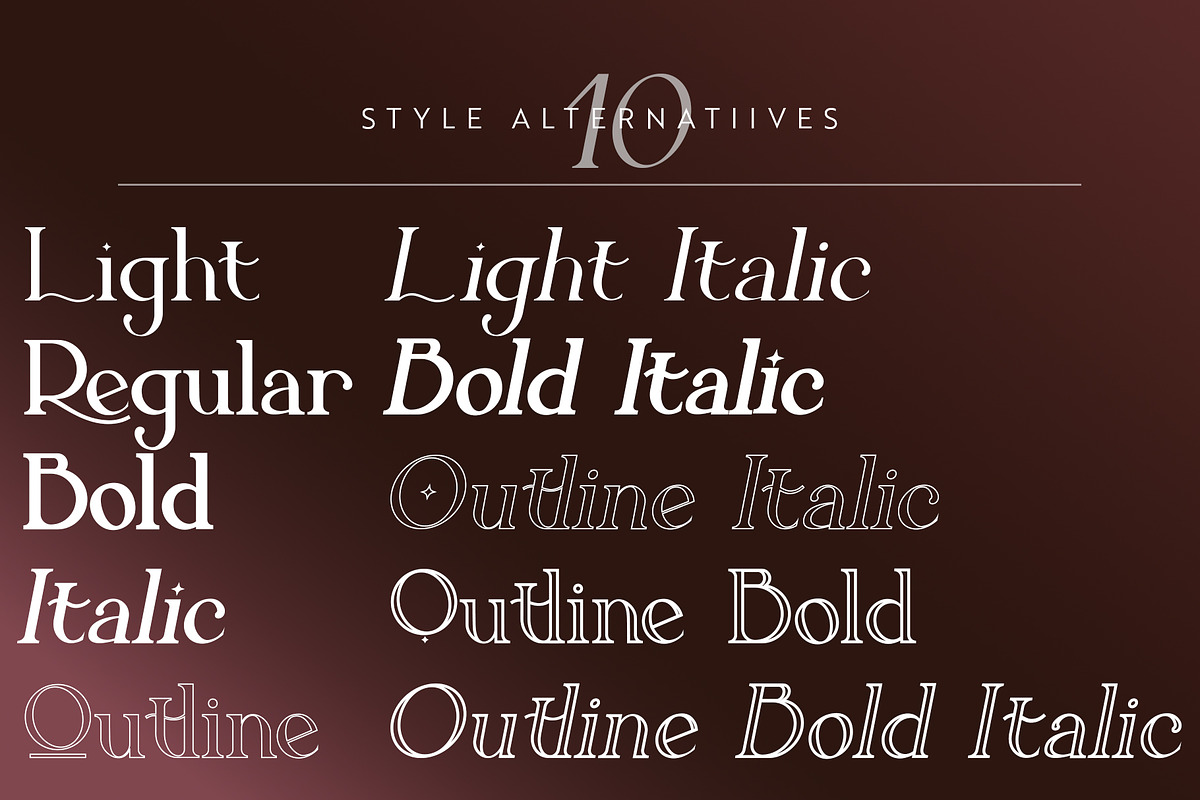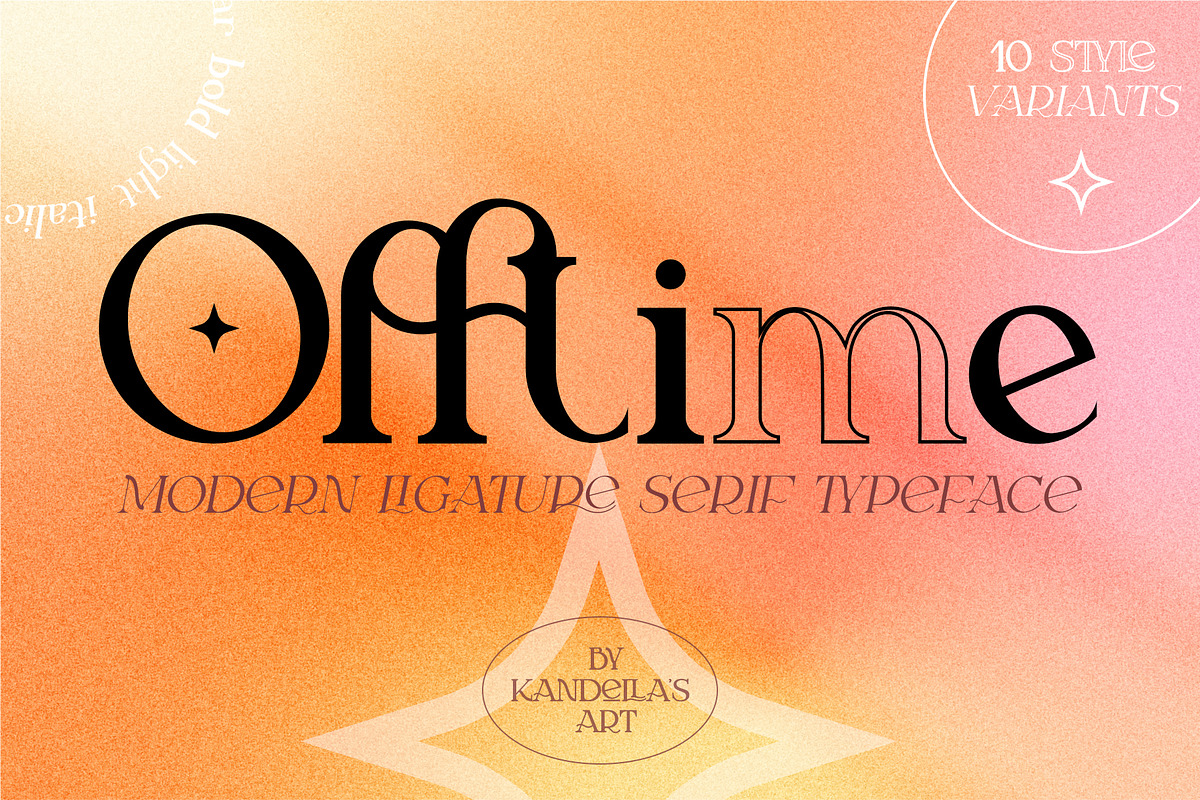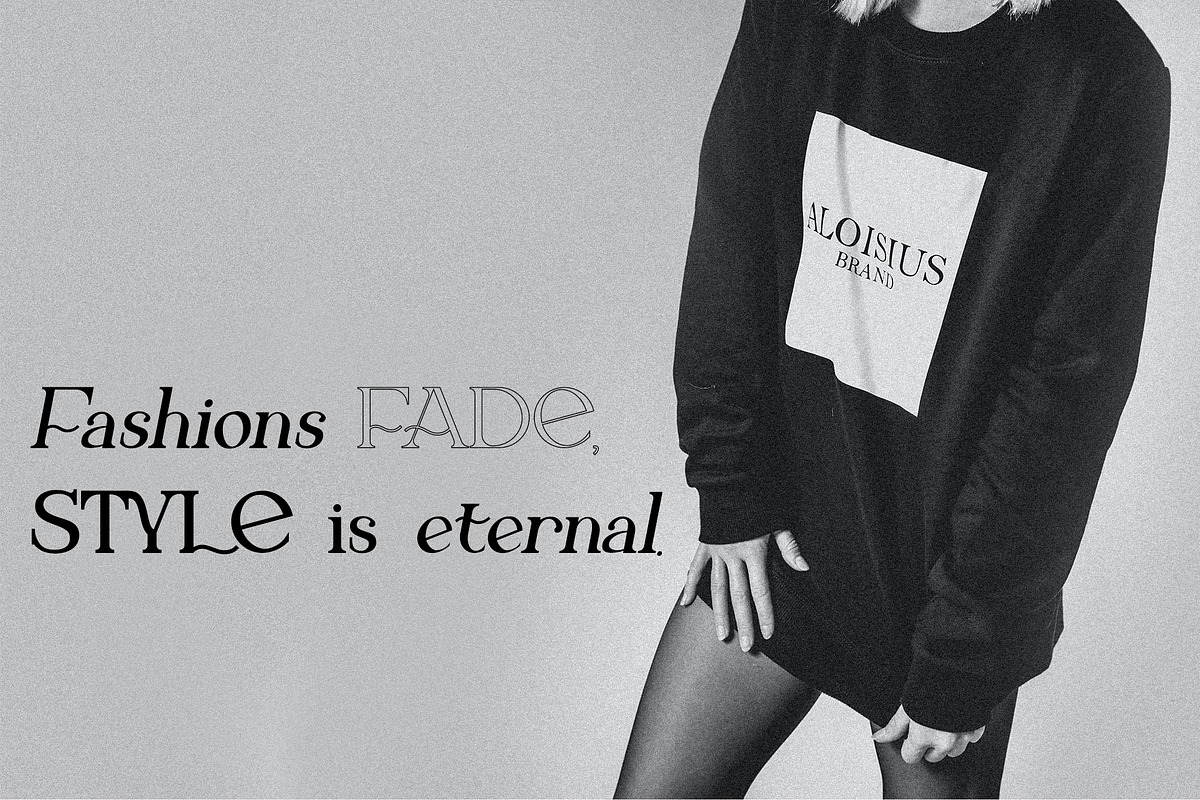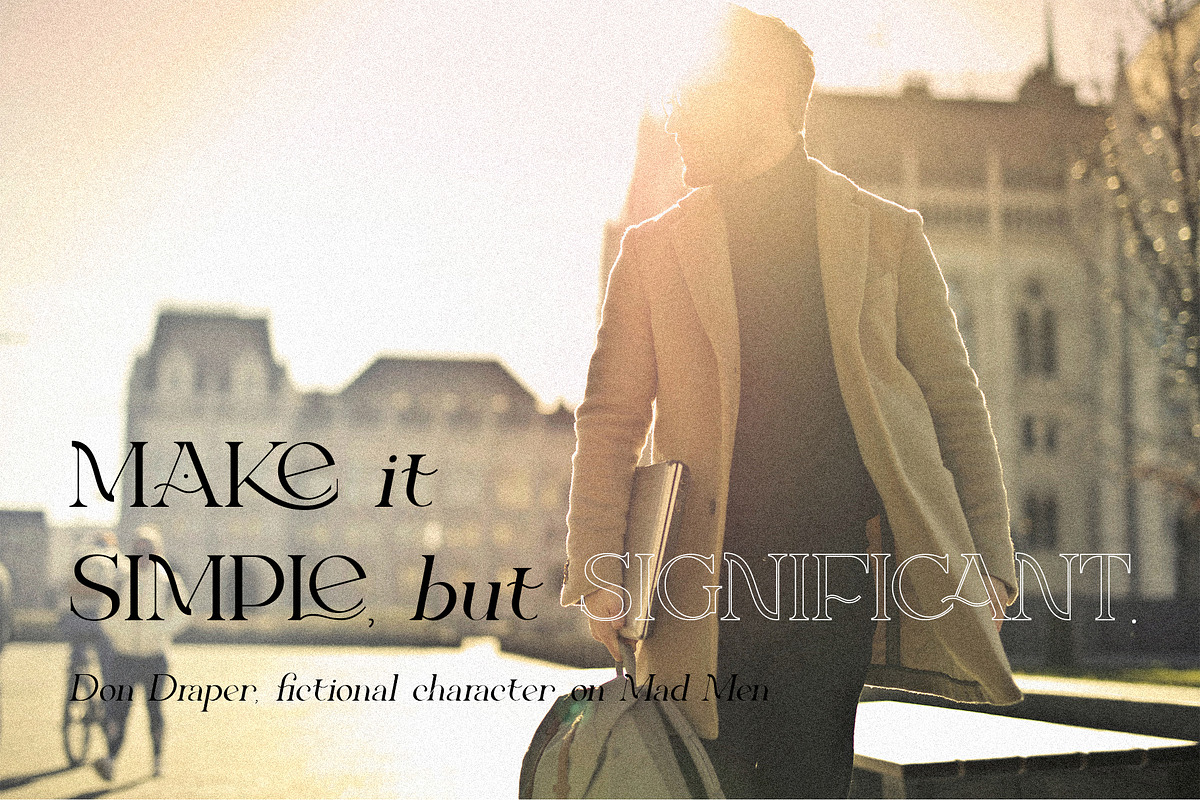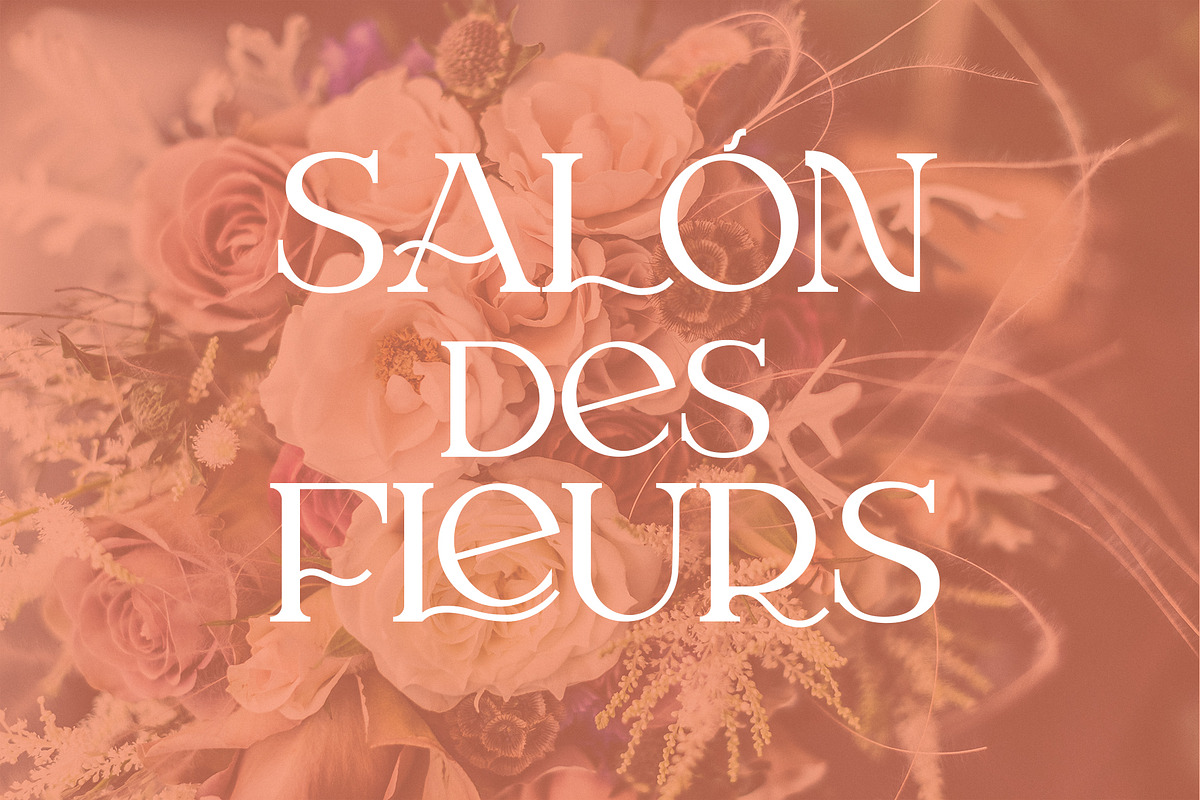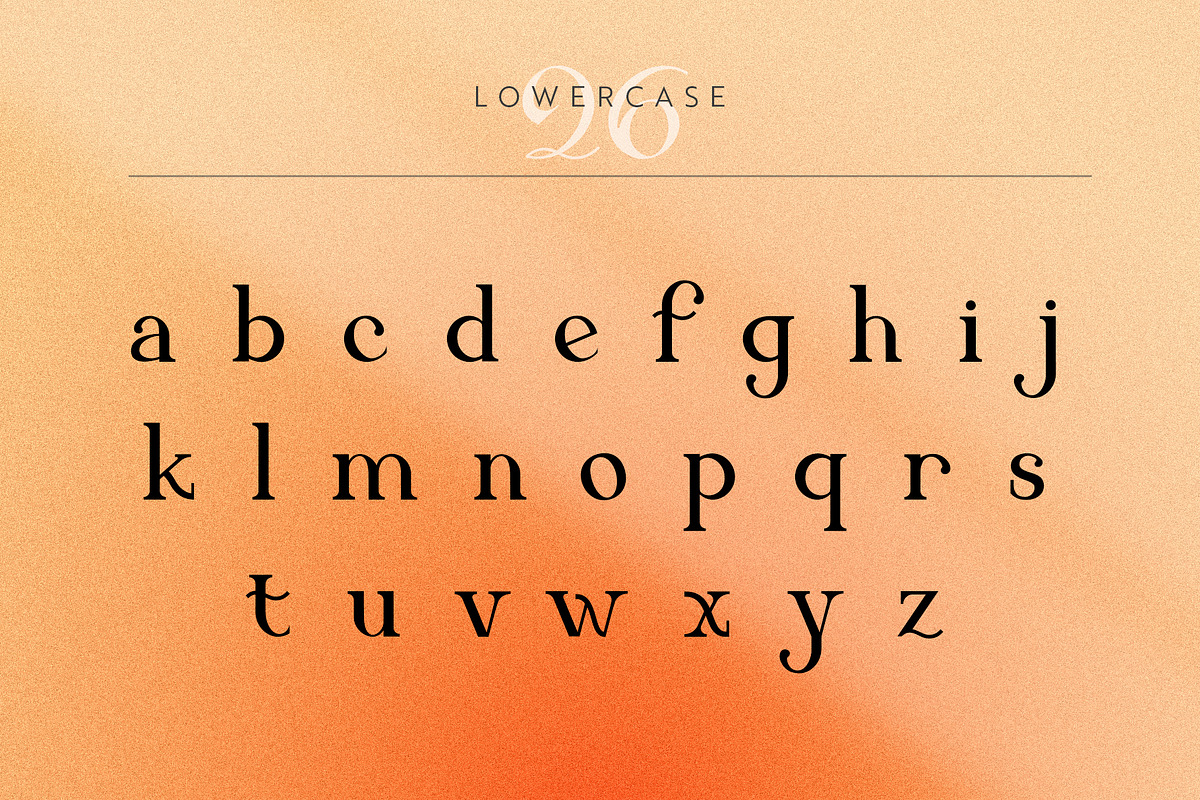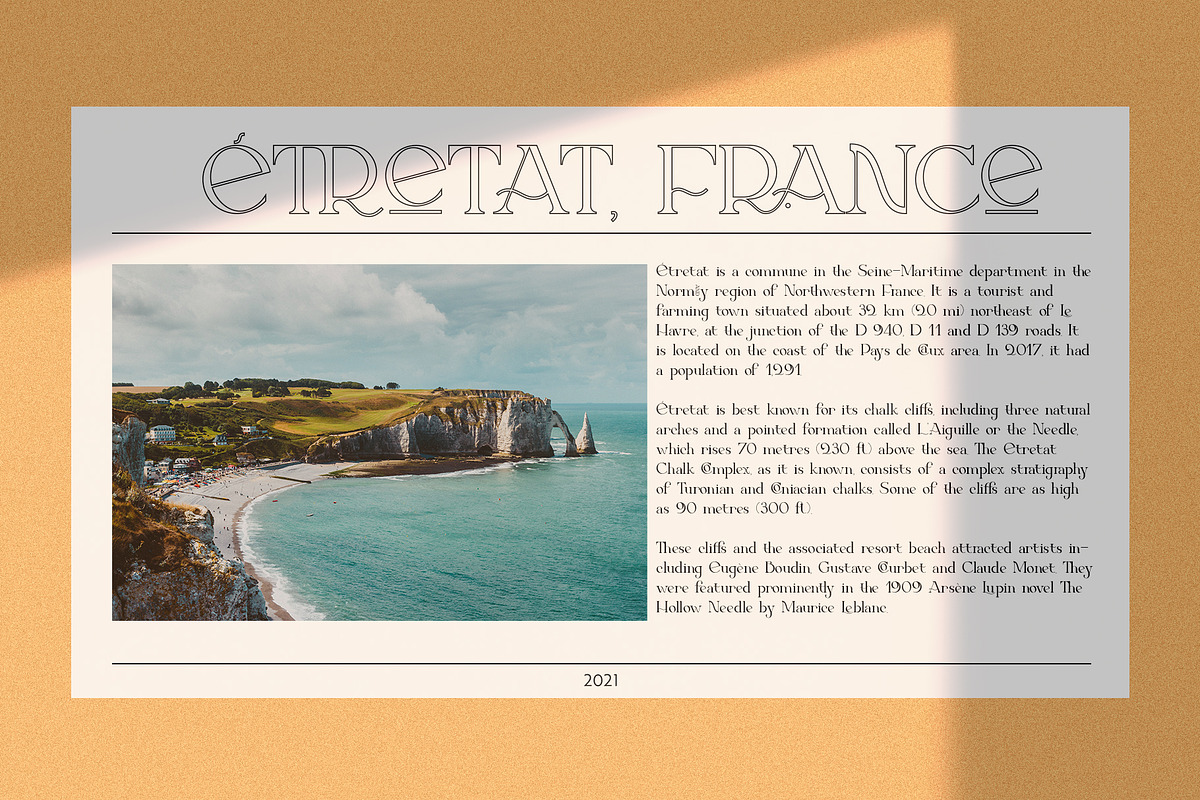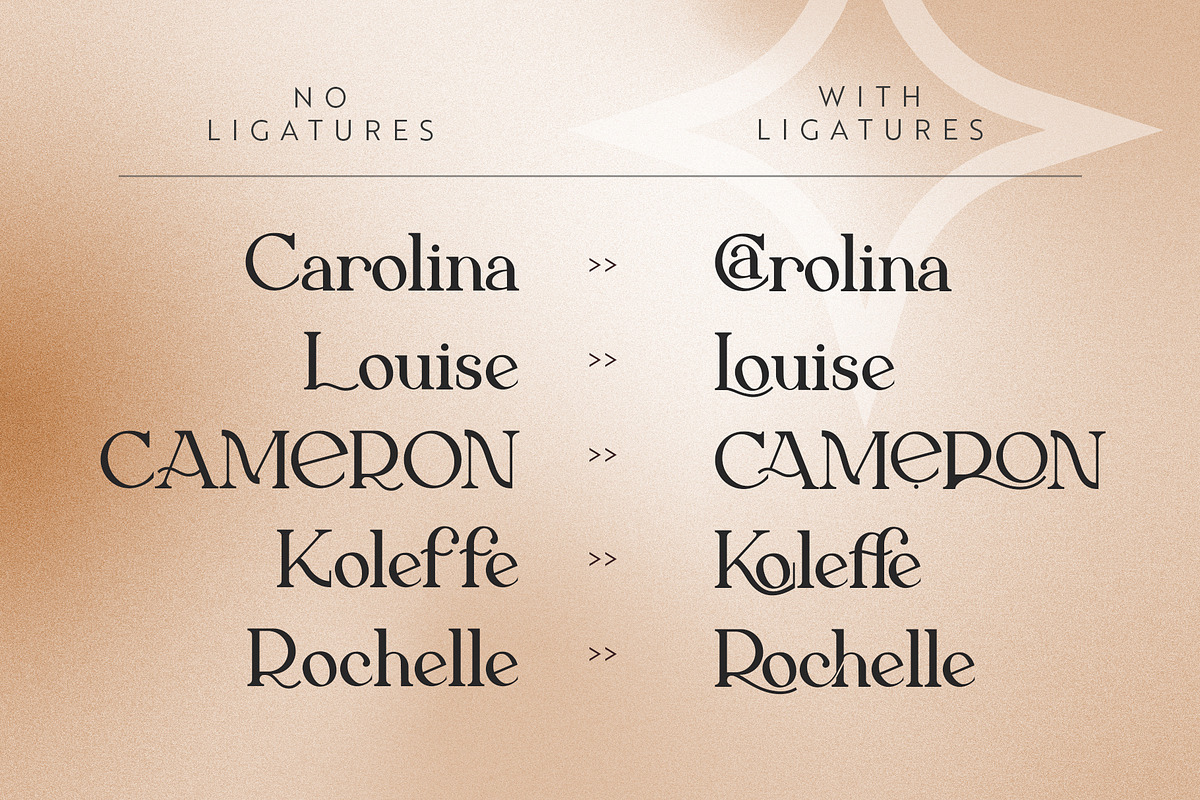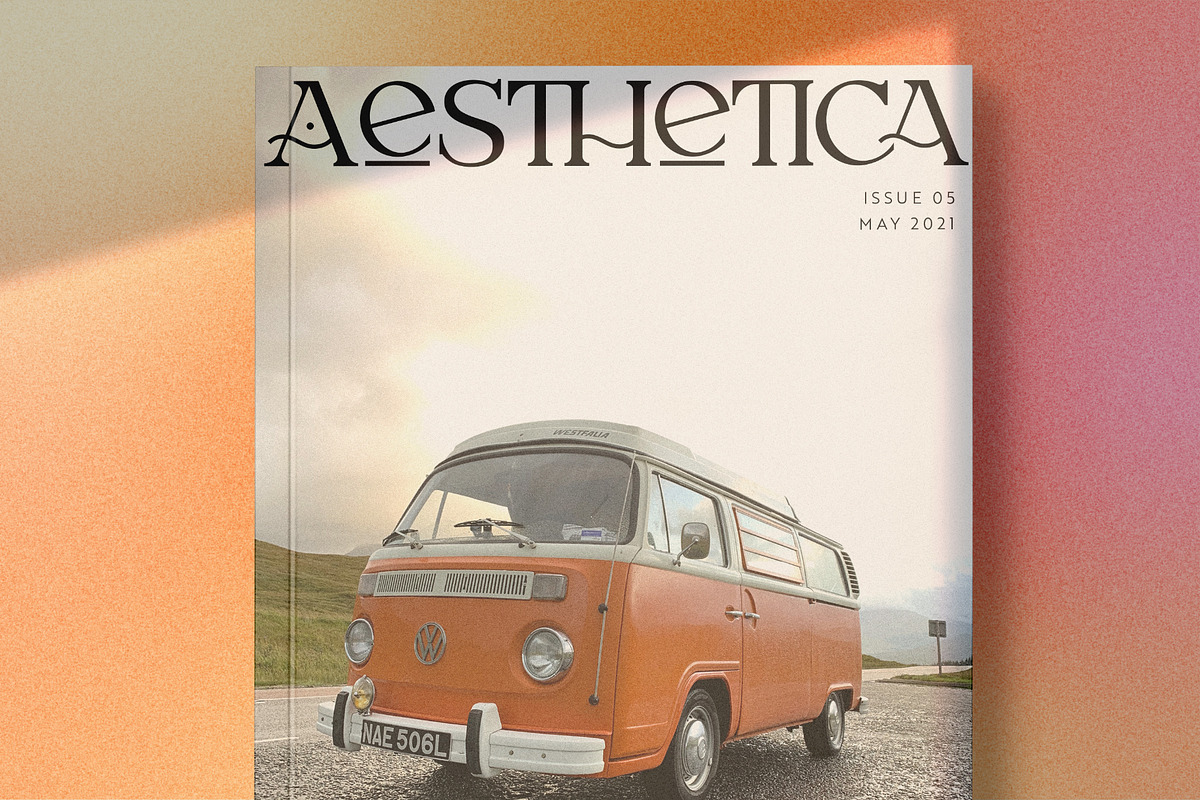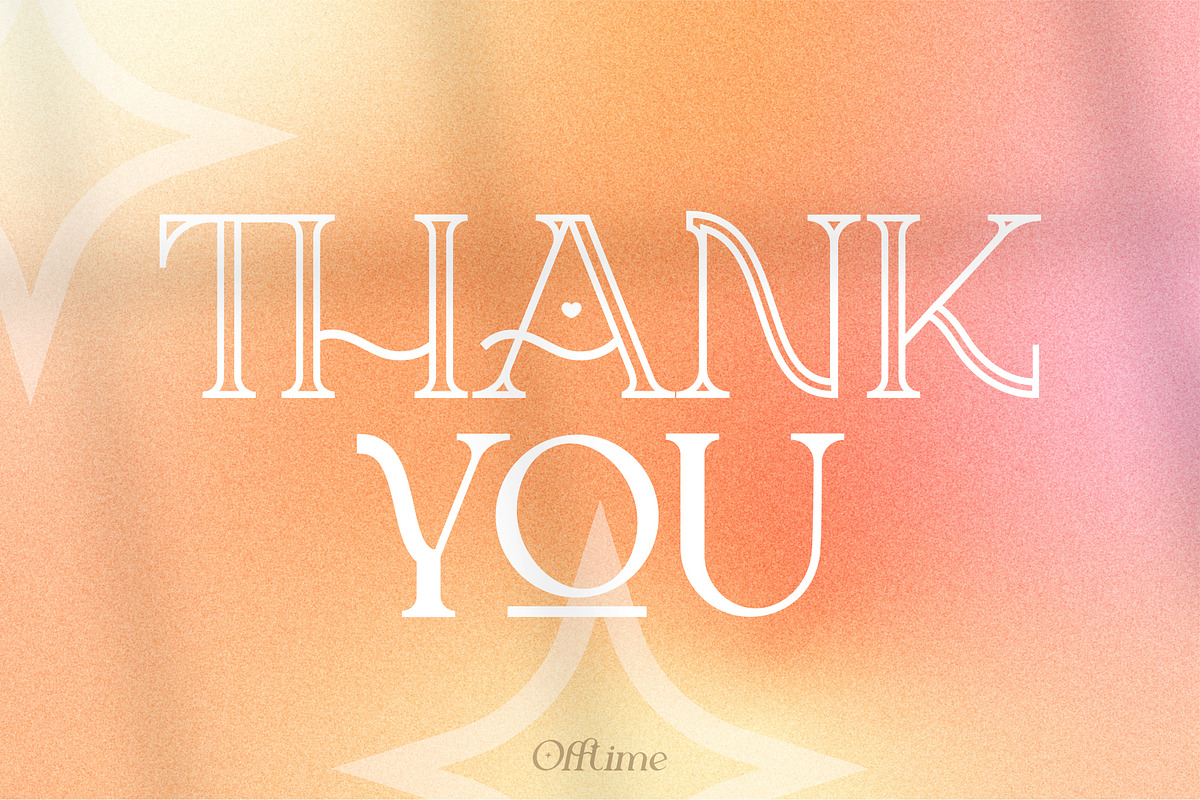
Offtime | Modern Ligature Serif Font
Offtime - my new stylish Serif typeface with beautiful ligatures and alternates. Inspired by classical elegance serif font and modern luxury typography. This font perfect for all kind of design: social media and visual content, web and UI design, posters and art collage, branding and logos, wedding typography. It will be modern unique elegance design.
Offtime include 10 style variants:
- Regular;
- Bold;
- Light;
- Outline;
- Italic;
- Light Italic;
- Bold Italic;
- Outline Italic;
- Outline Bold;
- Outline Bold Italic
Each Font included:
- Latin Upper and Lower Case characters;
- Numbers;
- Punctuation;
- Special symbols;
- Character's ligatures;
- Character's alternatives;
- Multilingual Support.